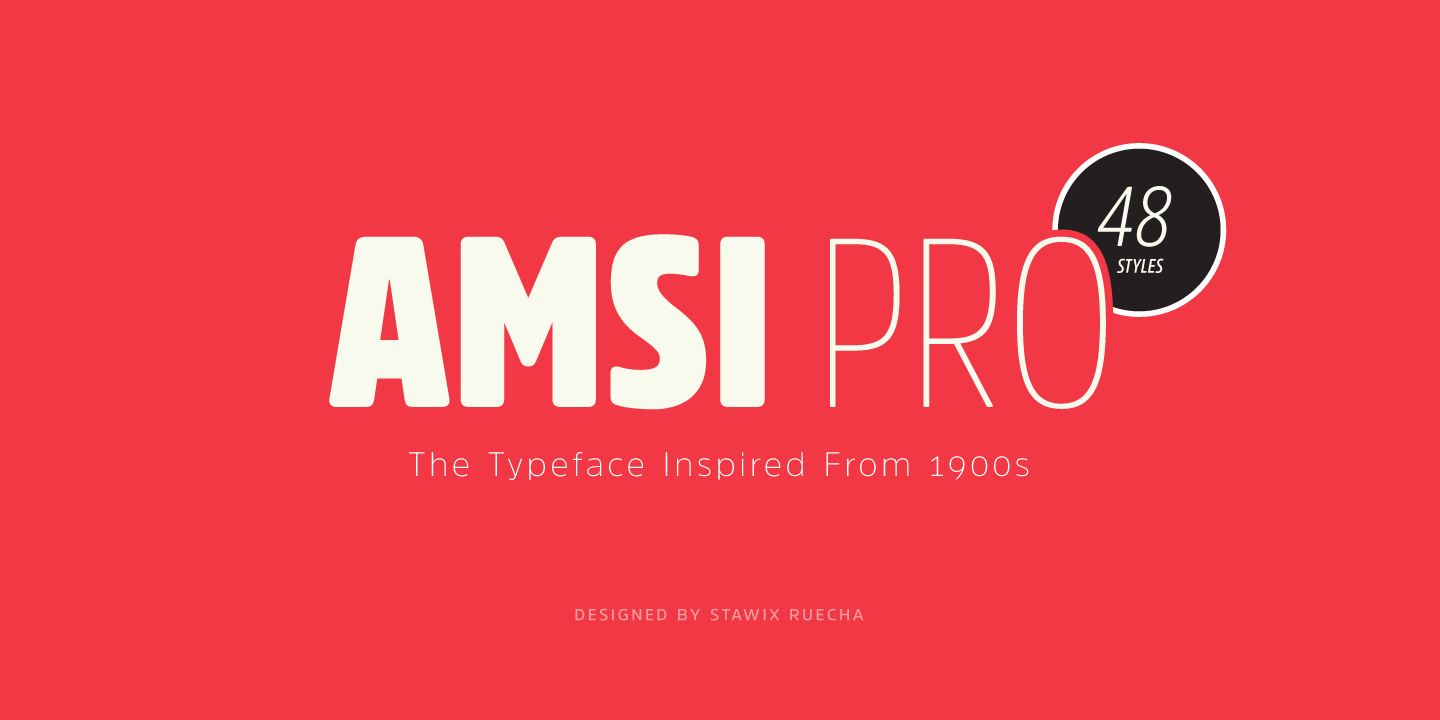
Amsi Pro Font
An unexpected encounter at ArtBasel that uses Block Berthold Condensed as their co-operated logo. It is purely a personal impression towards this particular font. Following the research, it turns out that this font has been around for approximately a hundred years. Which then commenced into the designing process of Amsi by utilizing the inspiration from this font as a core concept in order to interpret a new aspect of Block Berthold in the present context through the outlook of the designer.
Therefore Amsi has been designed to equipped with three different widths; Normal, Narrow and Condensed, addition to expanding weights to support various usabilities ranging from Thin, XLight, Light, Regular, SemiBold, Bold, Black and Heavy. Which makes Amsi along with a numerous features support the creativities of the designer from the Font Menu.